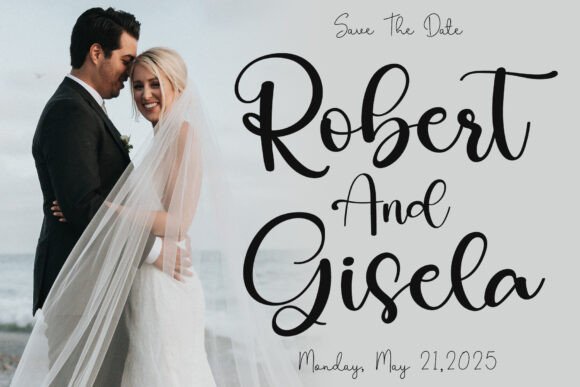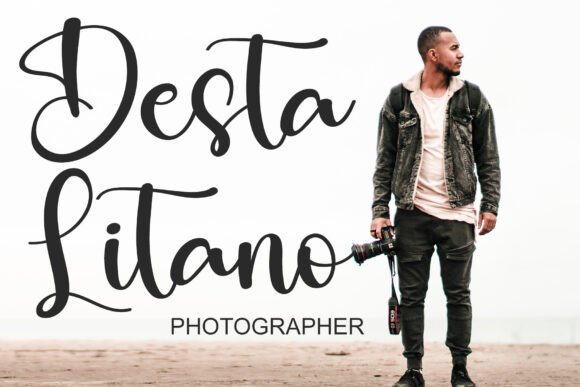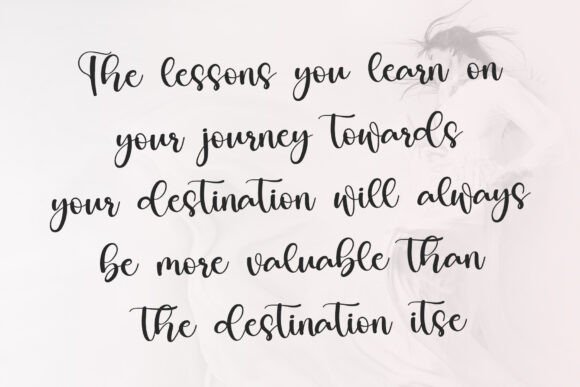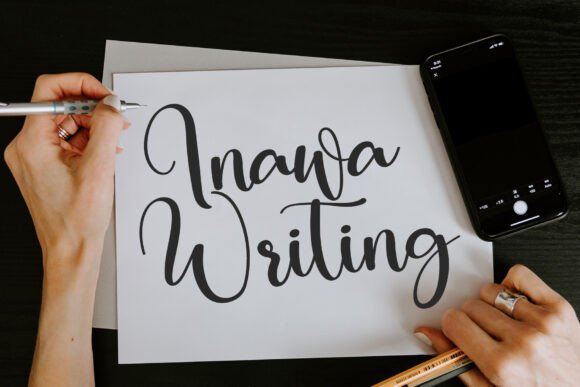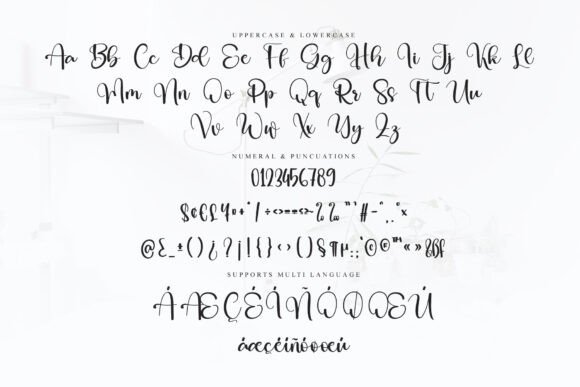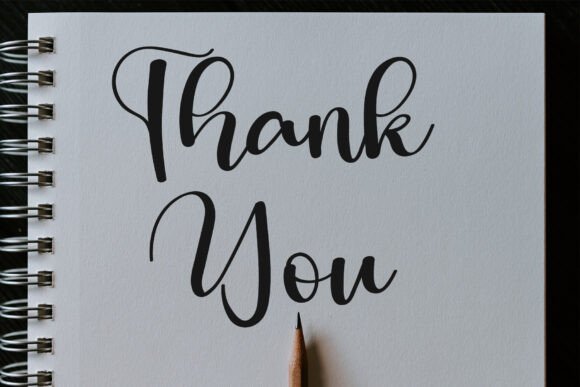
Creating Memorable Moments with the Birthday Moment Font
Have you ever been brainstorming ideas for a special project and suddenly, a spark of inspiration hits you? It’s that feeling of excitement and anticipation when you know you’ve found the perfect solution – and that’s exactly what happens when you discover the Birthday Moment Font. This charming handwritten script font is designed to bring joy and elegance to your designs, making it a go-to choice for celebrating life’s sweetest occasions.
Whether you’re a seasoned designer or just starting out, the Birthday Moment Font is a valuable asset to have in your toolkit. Its delicate curves and playful yet refined strokes make it perfect for creating invitations, greeting cards, branding, and more. With its sophisticated flair, this font is an exquisite choice for romantic designs, such as wedding invitations and event signage.
Birthday Moment Font Key Features
- Unique Characteristics: The Birthday Moment Font features a playful, cursive design with swashes and flourishes, perfect for creating celebratory and festive atmospheres.
Birthday Moment Font Review
Overall, I think the Birthday Moment Font is a charming and whimsical choice for any celebratory design project ✨. The font’s playful, cursive style is reminiscent of hand-written birthday cards, which adds a personal touch to any design. The font is also highly customizable, making it easy to adjust the color, size, and spacing to fit your design needs.
- Playful and whimsical design ✨
- Perfect for celebratory designs, such as birthday invitations, party decorations, and more
However, there are a few limitations to consider ⚠️. The font can be a bit difficult to read at small sizes, and the cursive style may not be suitable for all types of text. Additionally, the font may not be as polished or refined as some other options on the market.
Overall, I would recommend the Birthday Moment Font for designers looking for a fun and playful option for their celebratory designs. While it may not be the best choice for all projects, it’s a great option for those looking to add a touch of whimsy and personality to their designs.
Tips for Getting the Most Out of Birthday Moment Font
To get the most out of the Birthday Moment Font, use it in conjunction with bright colors and playful graphics. This font is perfect for birthday invitations, cards, and party decorations.
The Birthday Moment Font is commonly used in:
- Birthday invitations and cards
- Party decorations and signage
- Photography and design projects
Alternatives to Birthday Moment Font
Great Vibes is a beautiful, cursive script font perfect for adding a touch of elegance to your birthday designs. It’s ideal for creating invitations, greeting cards, or social media posts. When to use: Formal events, weddings, or high-end birthday parties.
Comparison to Birthday Moment Font: Great Vibes has a more elegant and refined feel compared to Birthday Moment Font, which is more playful and casual. Great Vibes is suitable for formal events, while Birthday Moment Font is better suited for informal gatherings.
Q: Is the Birthday Moment Font optimized for digital use?
Yes, the Birthday Moment Font is designed to be optimized for digital use, including web, mobile, and social media platforms. It is built with clear and legible characters, making it suitable for various screen resolutions and sizes.